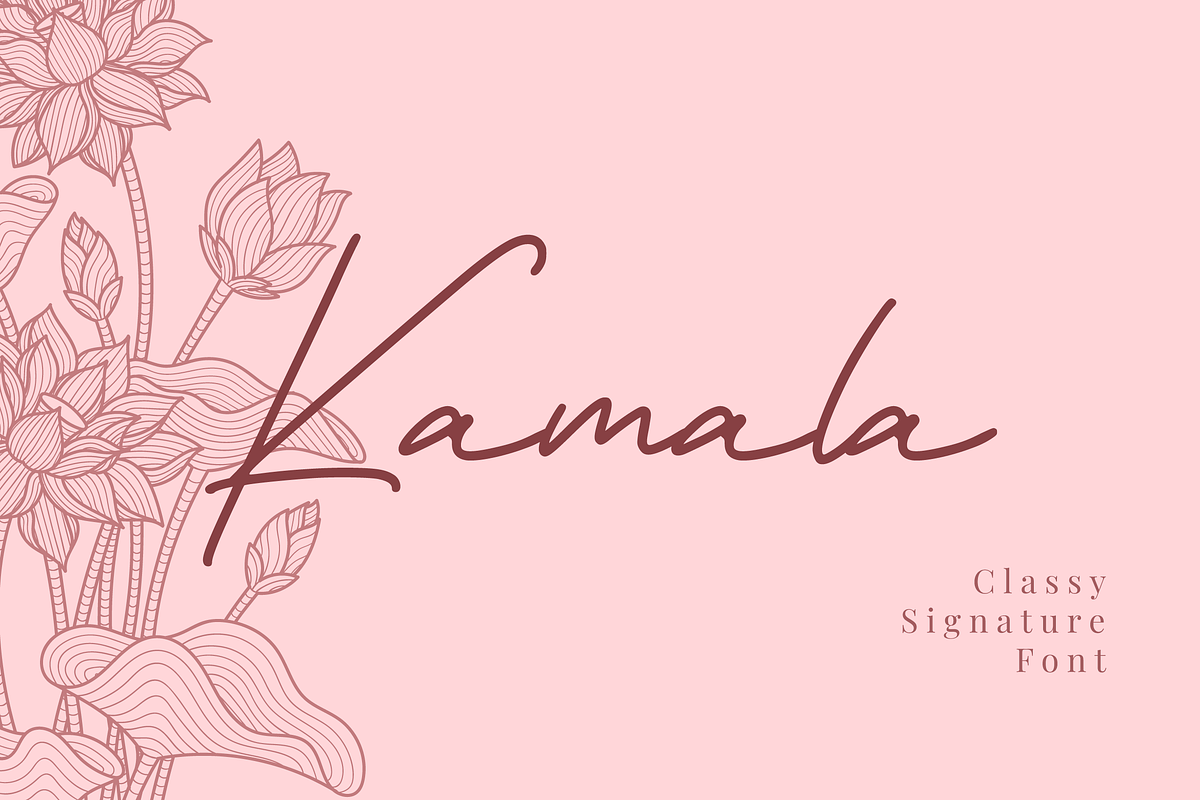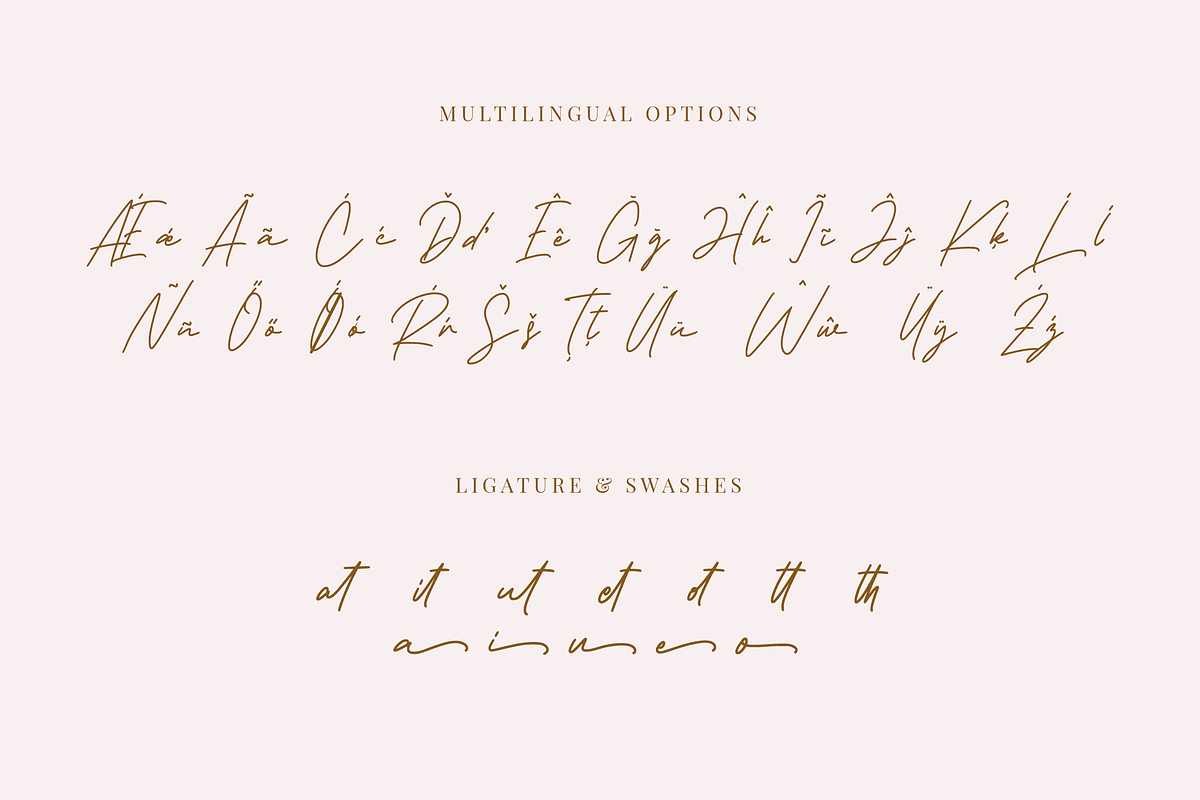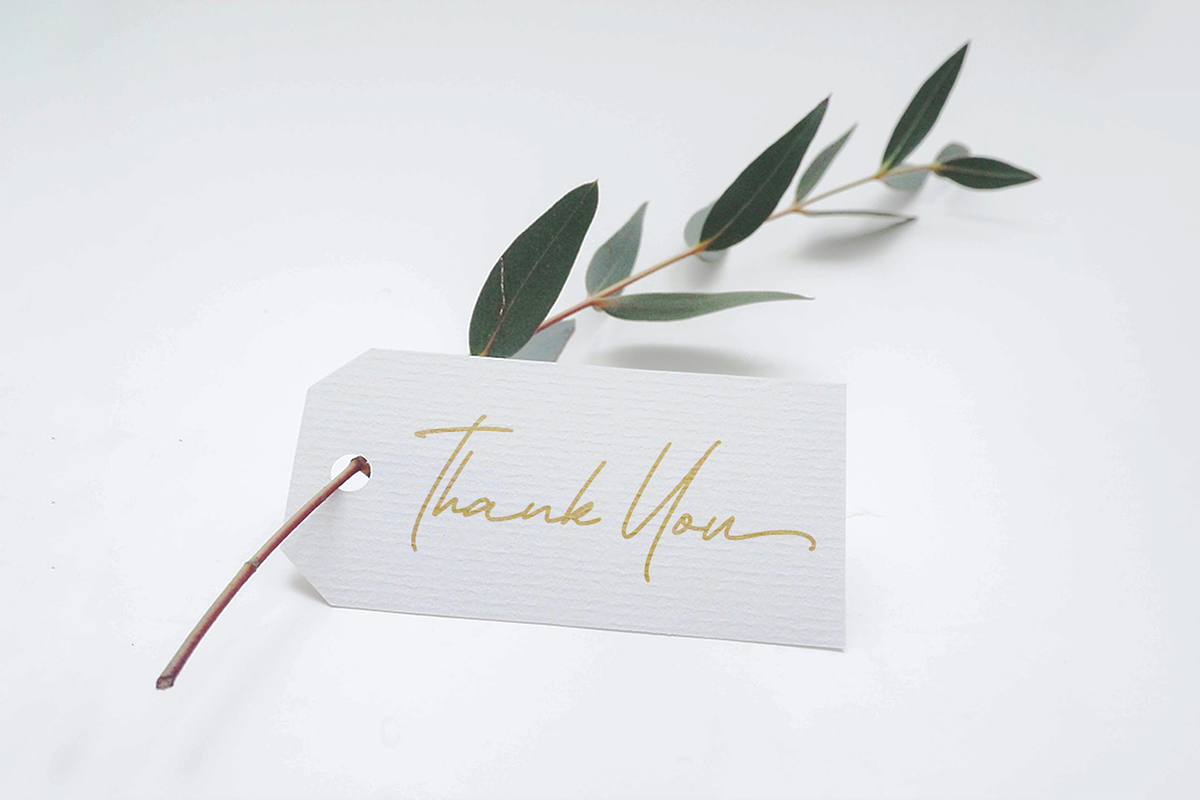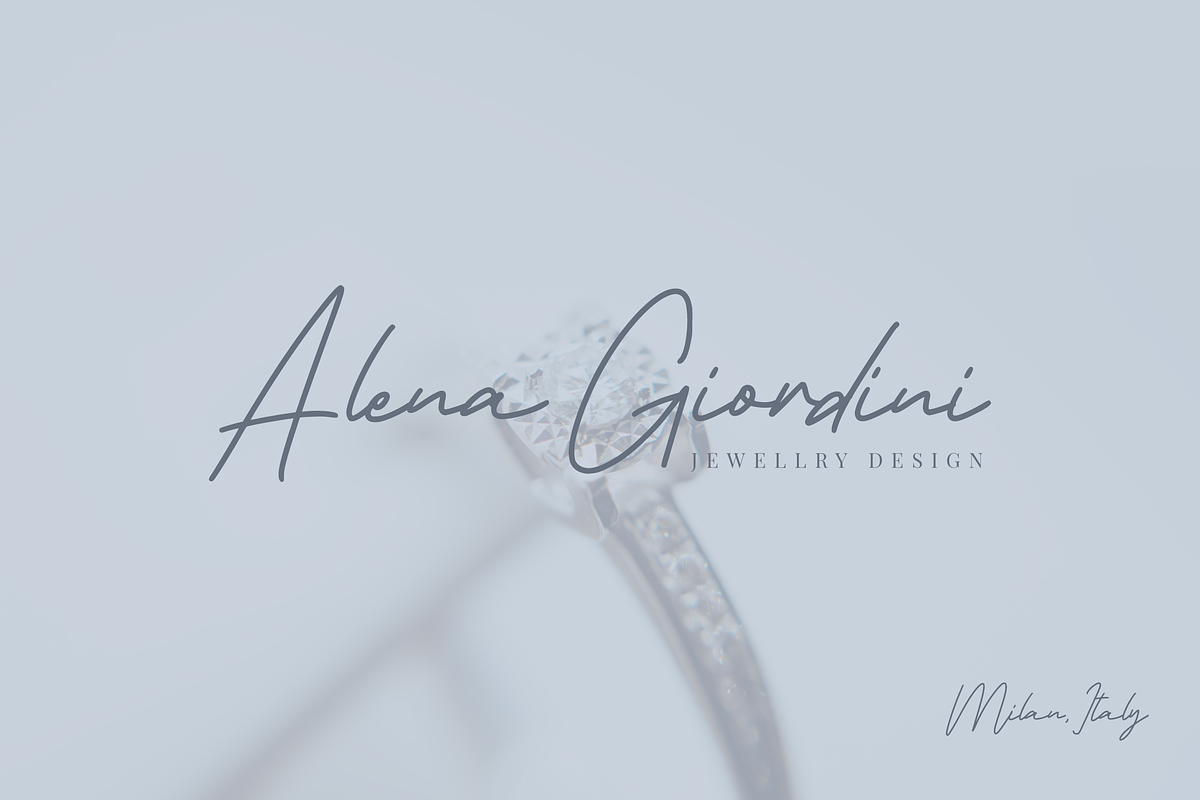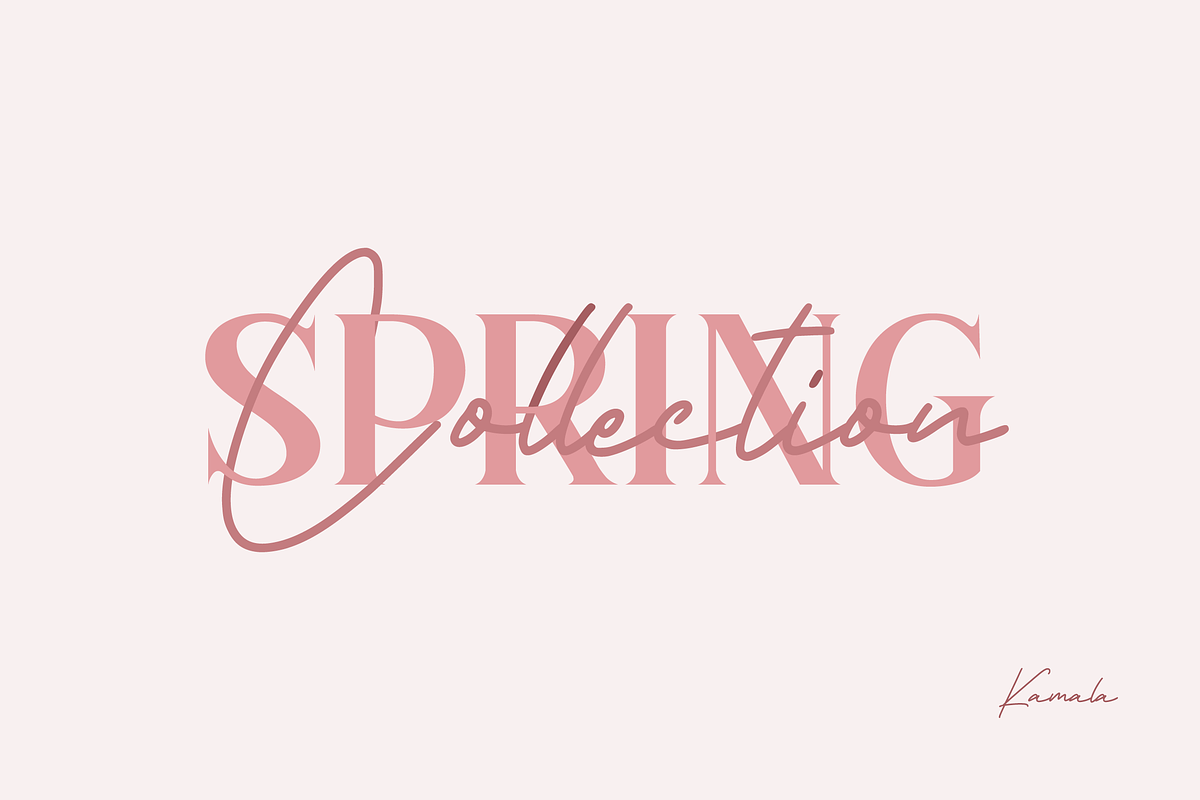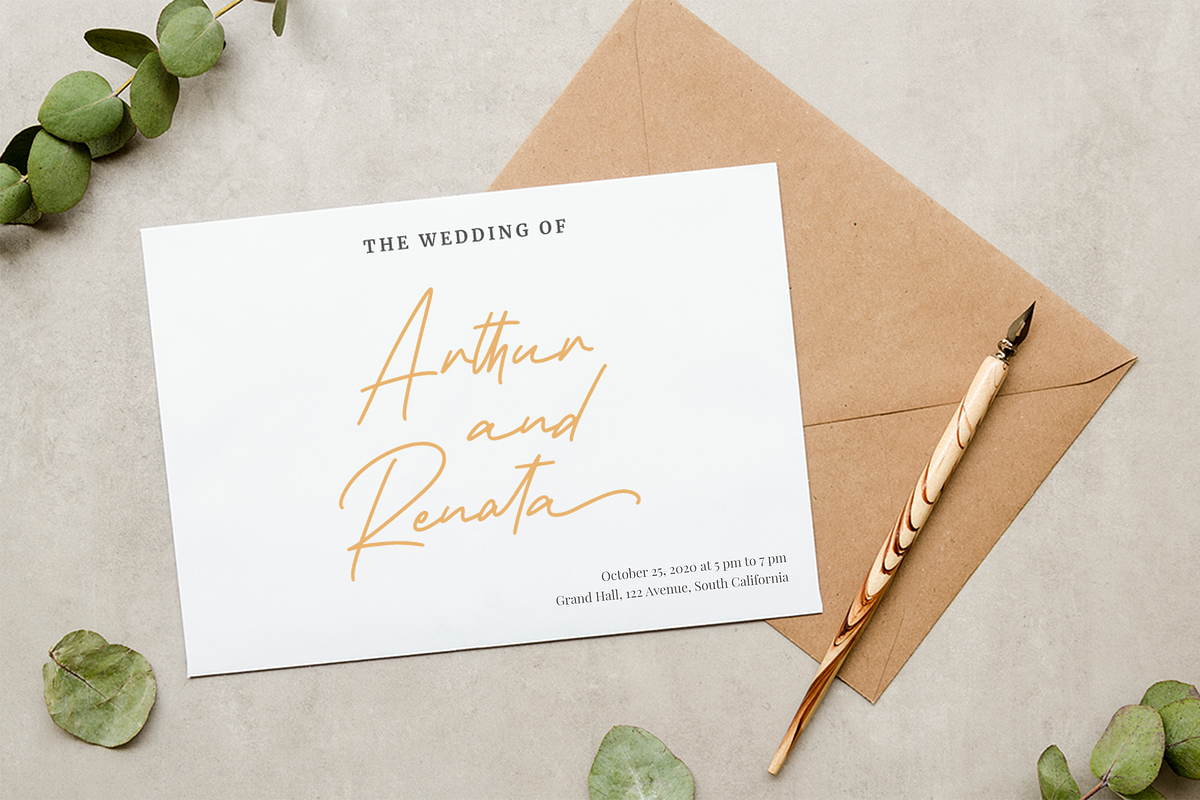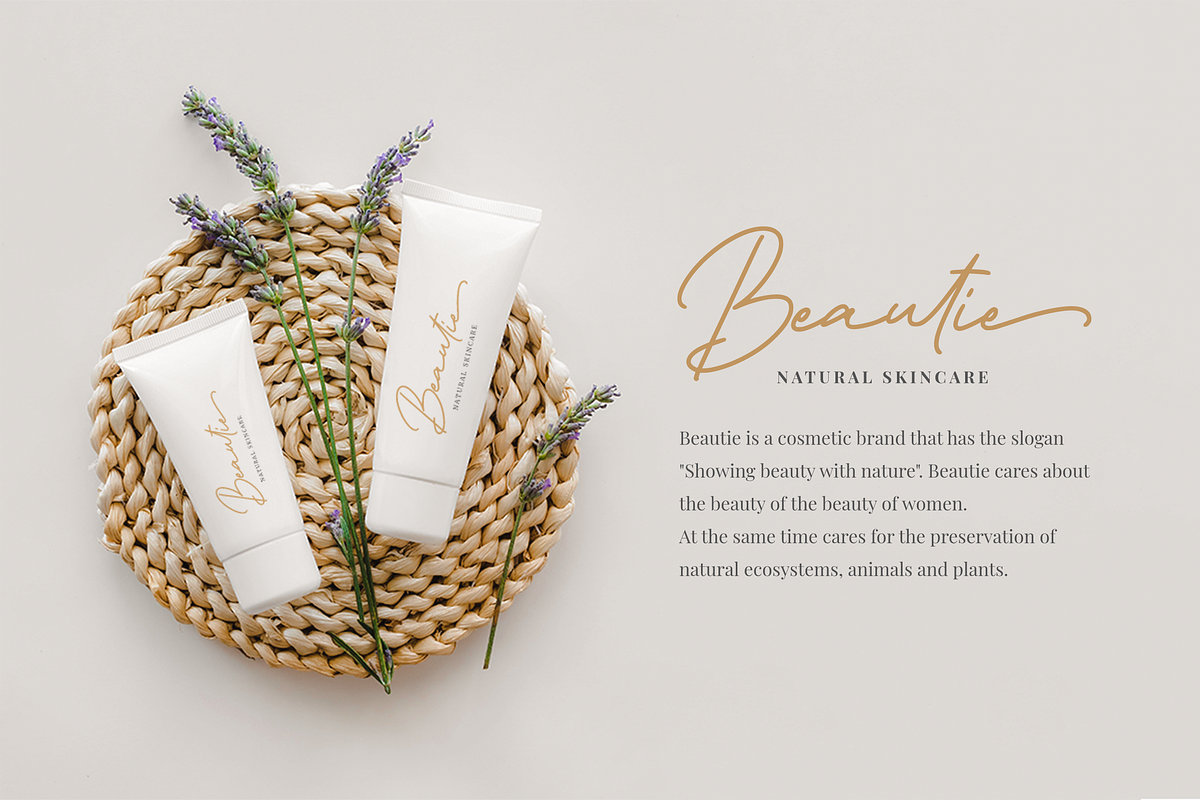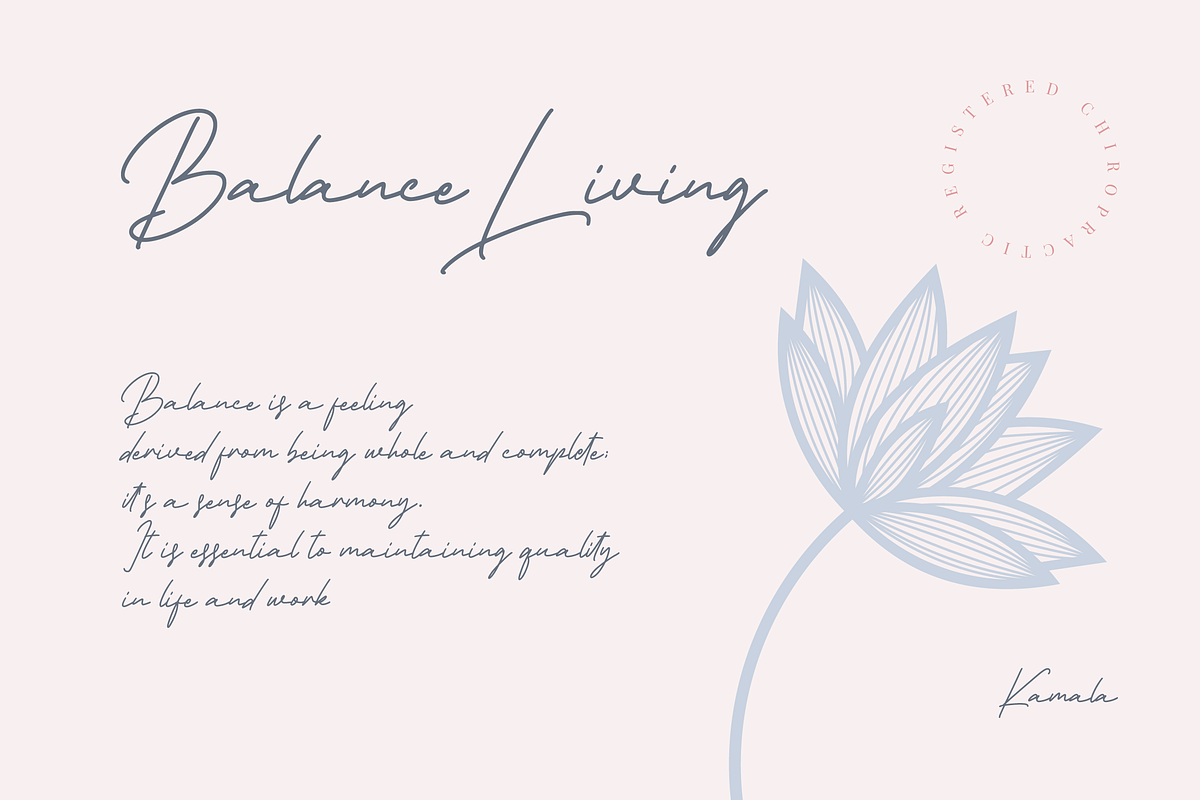
Classy Signature Font
Kamala is a signature script font, classy look, and versatile style. Its smooth and natural lines would make your name or logo look elegant. Kamala is perfect for signatures, logo, jewelry, beauty product, organic food, packaging, wedding invitation, and much more!
- Ligatures & Multilingual